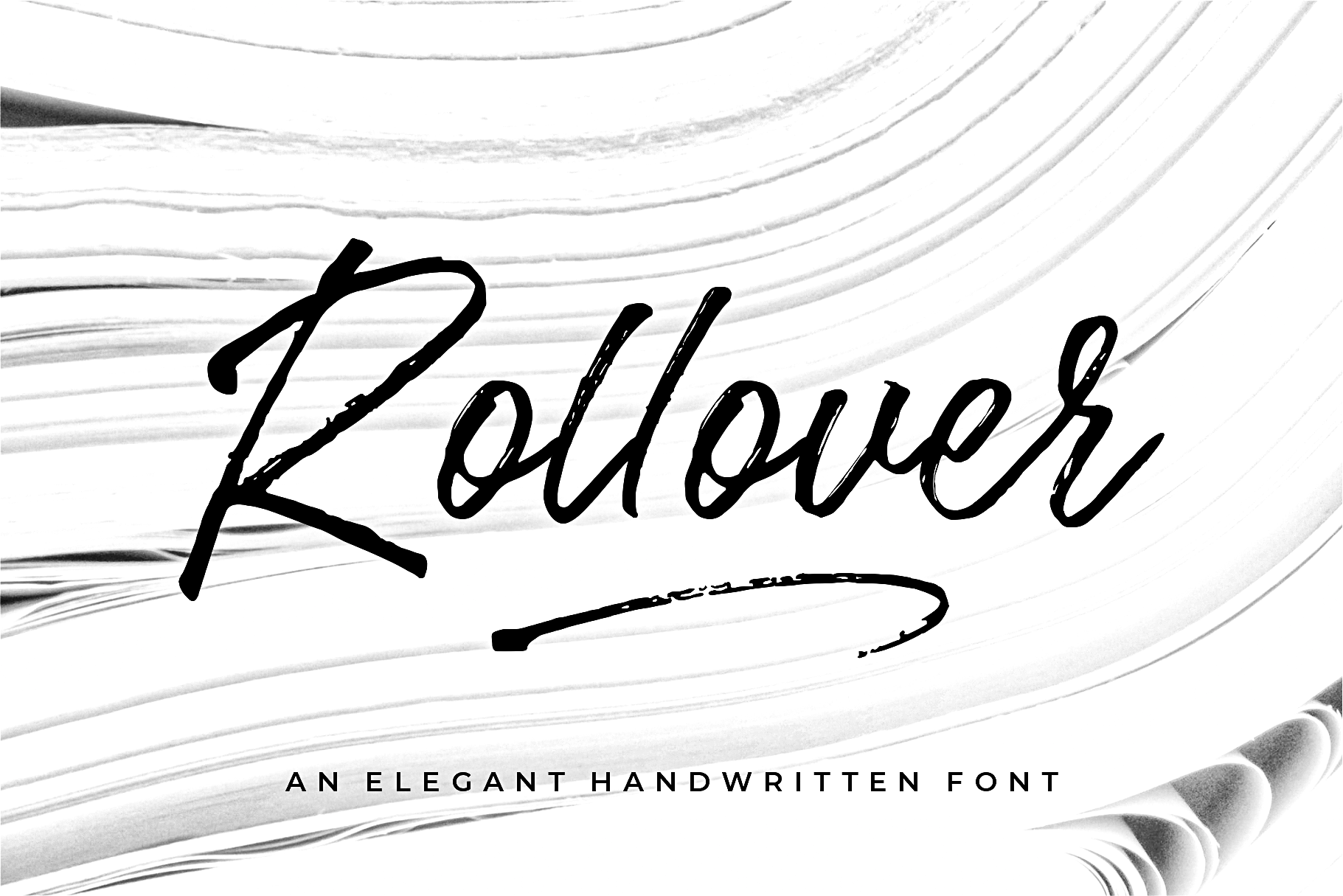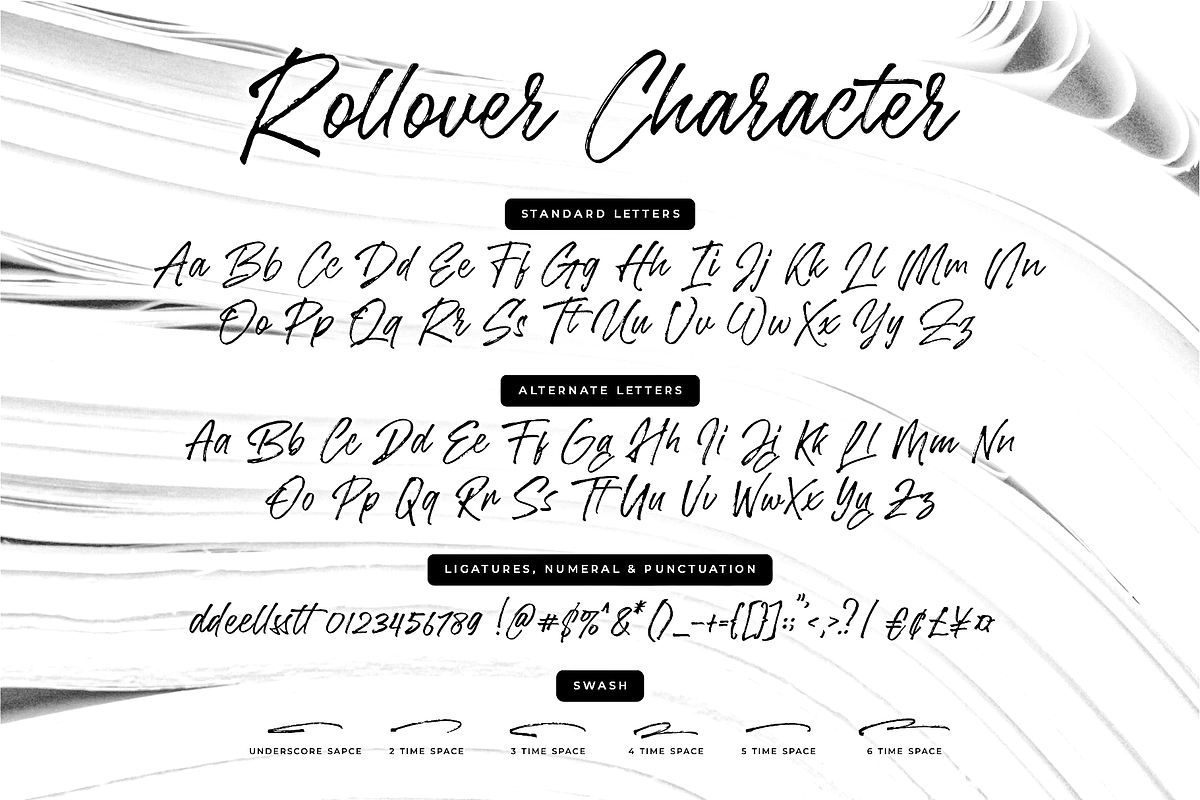
Rollover Brush Font
We’ve crafted the Rollover Brush Font by manually drawing brushed letterforms and carefully refining each brushstroke. You can try many variations by accessing OpenType features. You can easily achieve a natural, bold, and warm look with just one font. Rollover is perfect for branding projects, Logo design, product packaging, etc.
Rollover features:
- A full set of upper & lowercase characters
- A full set of upper & lowercase characters (Alternates)